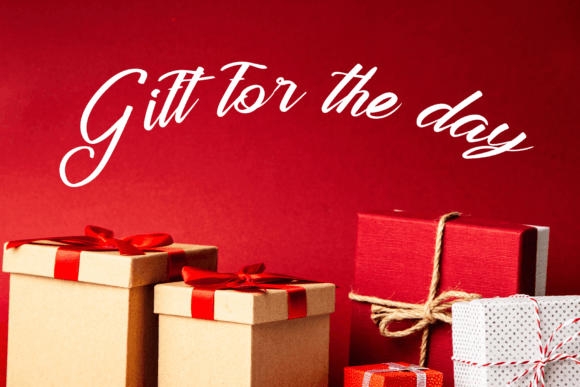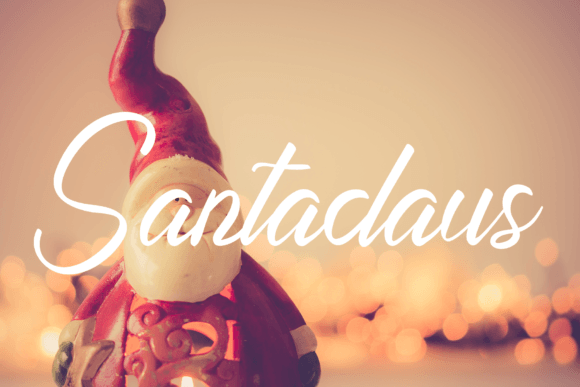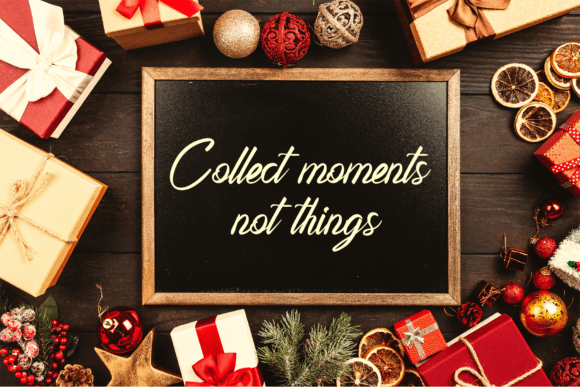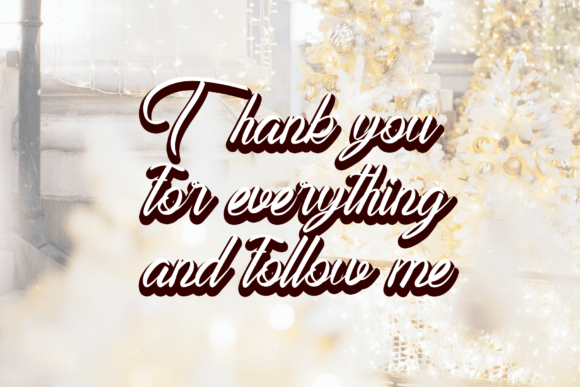
Hello Christmas Font
About Hello Christmas Font
“Hello Christmas is a sweet and beautiful handwritten font that adds a touch of luxury and charm to any design project. With characters that dance along the baseline, this font exudes a playful yet elegant quality, making it perfect for creating festive and delightful designs during the holiday season.
The unique charm of Hello Christmas lies in its handwritten style, where each character is carefully crafted to convey a sense of warmth and beauty. The characters dancing along the baseline contribute to the font’s playful and dynamic nature, adding a special spark to your text.
Whether you’re working on holiday cards, seasonal invitations, or any design that needs a festive touch, Hello Christmas stands out as a font that brings a luxurious and joyful aesthetic. Its handwritten elegance becomes a key element in creating designs that capture the spirit of celebration.
Imagine Hello Christmas enhancing your holiday projects, adding a sweet and playful touch to your greetings and invitations. Its unique baseline dancing characters become the defining element that sets your designs apart, creating a festive and memorable visual experience.
As you explore the nuances of Hello Christmas, you’ll discover its potential to infuse luxury and cheer into your creative endeavors. Let it be the font that brings a touch of holiday magic to your designs, making them stand out with handwritten charm and a sprinkle of festive joy.”